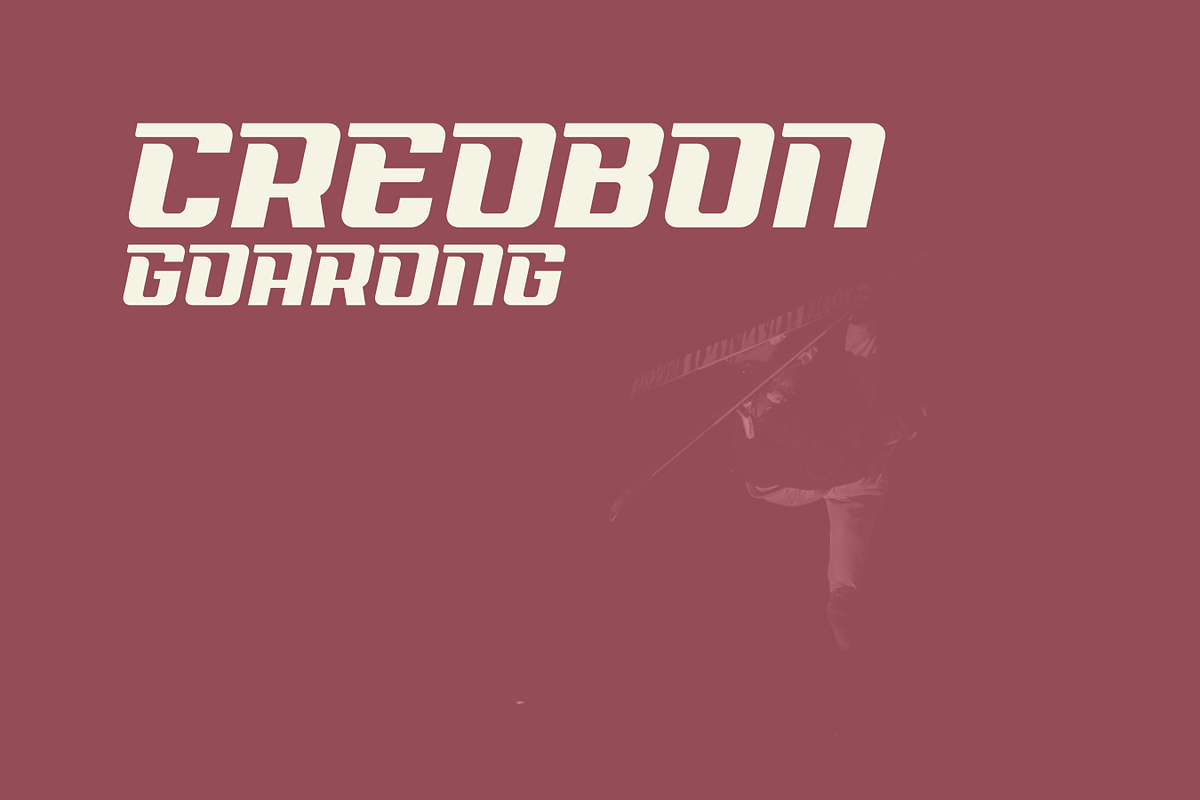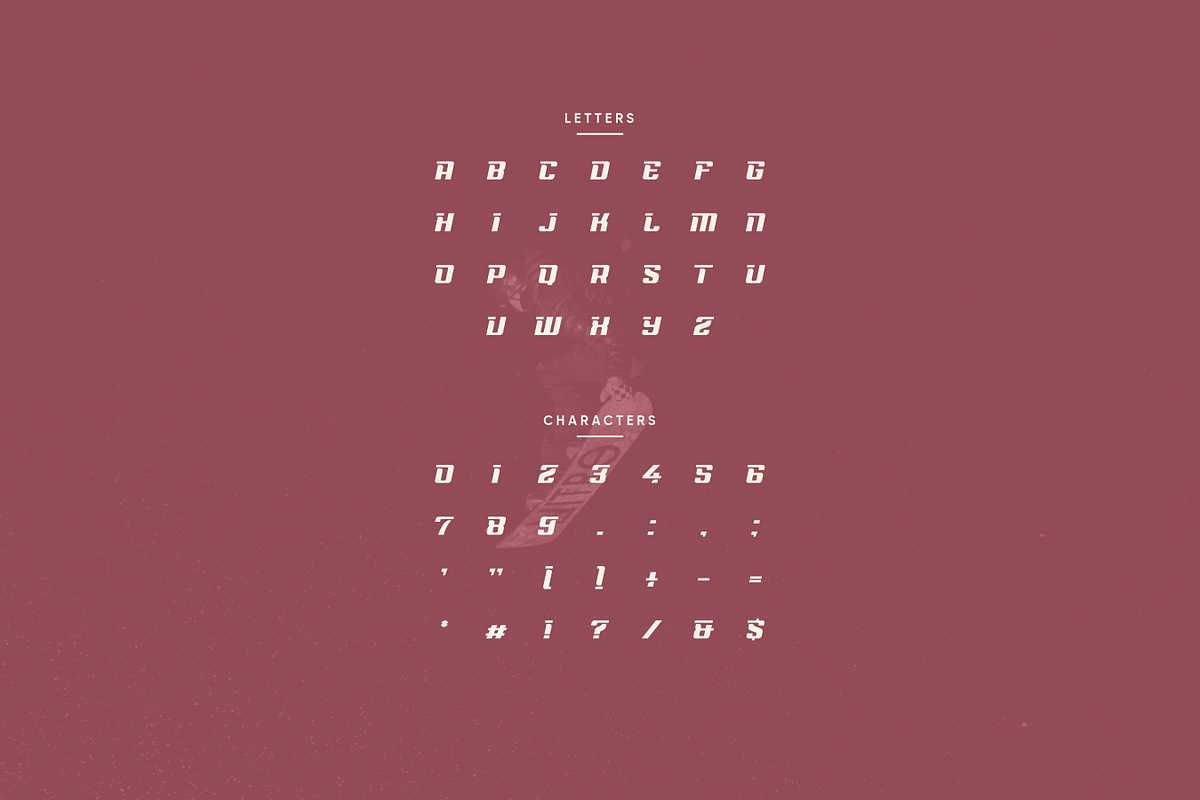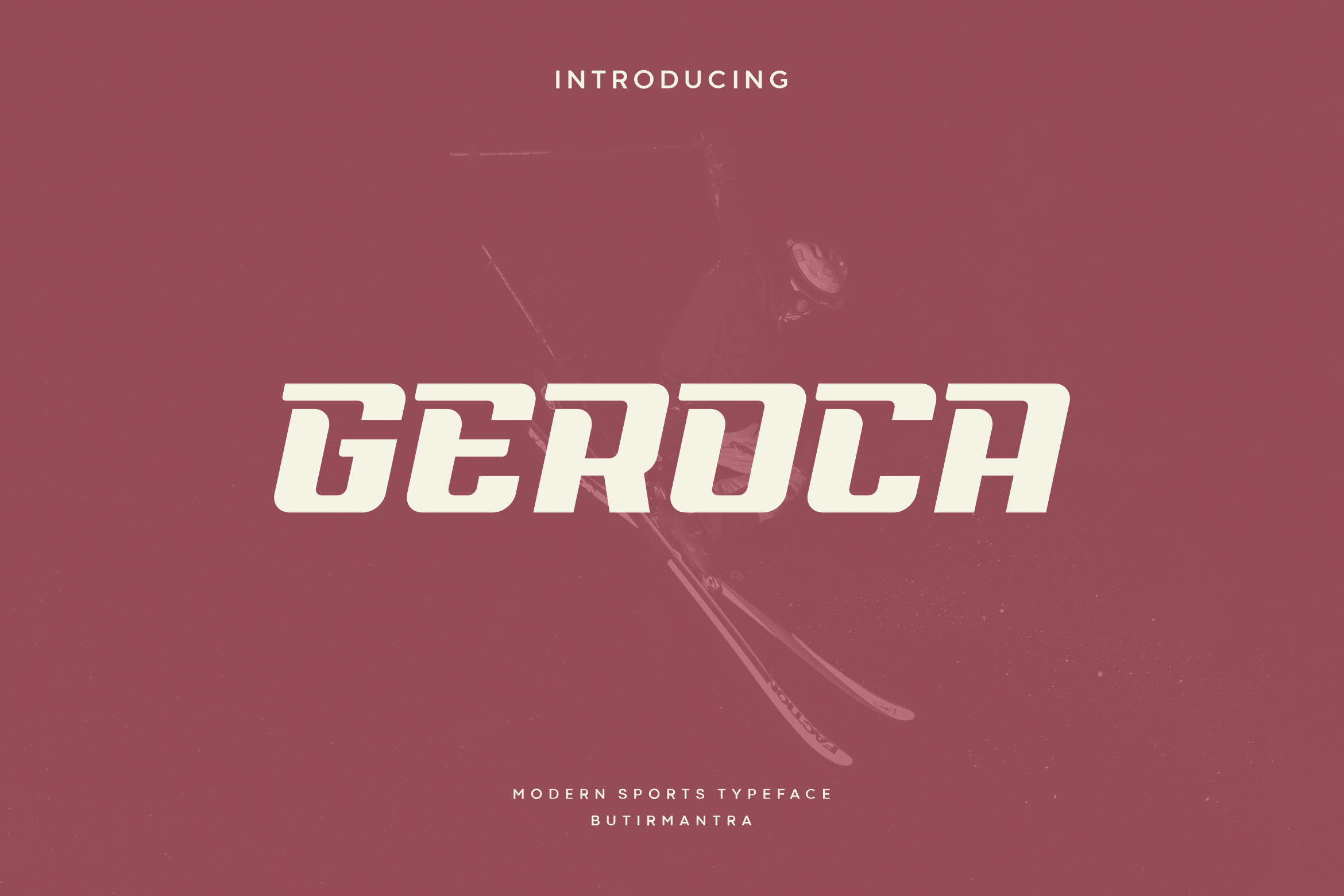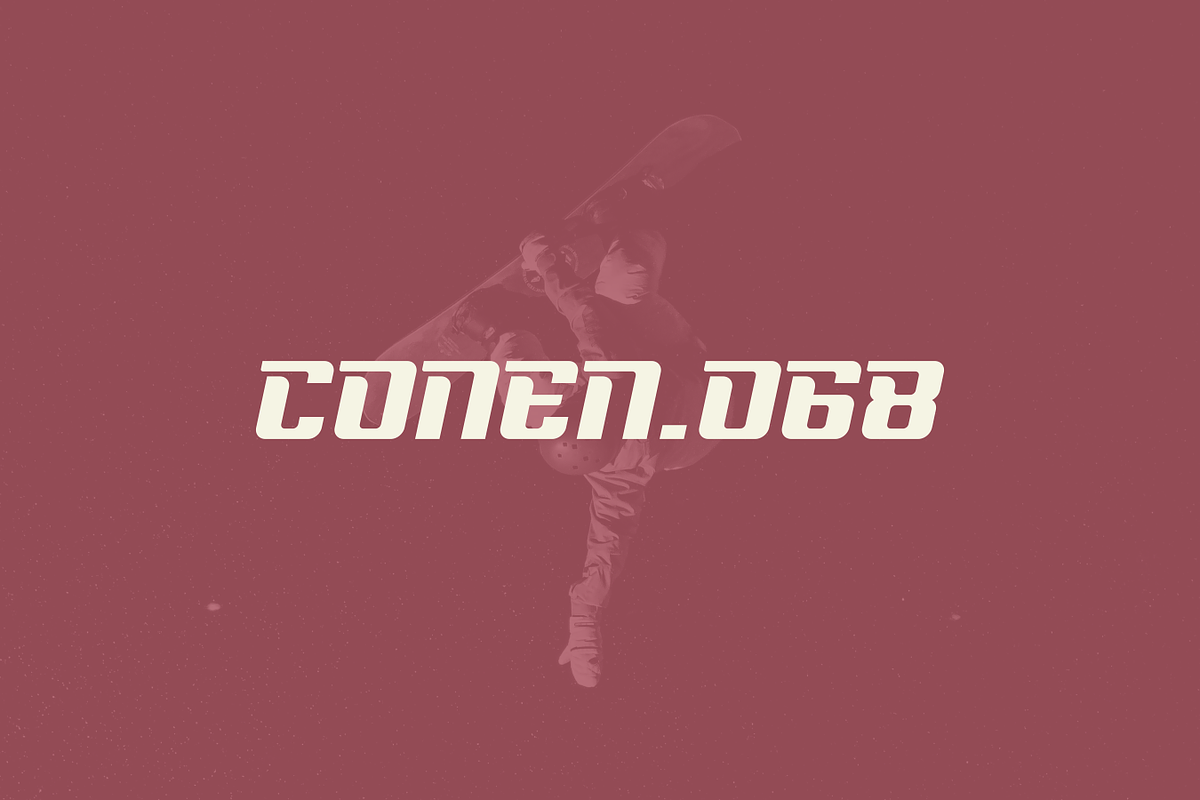
Geroca - Modern Sport Typeface
Geroca is a fresh sports font, cool sports font with wide italics, coming all-caps with modern letter cuts and dynamic slant. Ideal for sports magazine, headlines, auto racing, logos, branding, monograms, automotive or any other sports-themed design. The slanted corner cuts create an effect of power and speed, very sporty but with a slightly different and new font design.